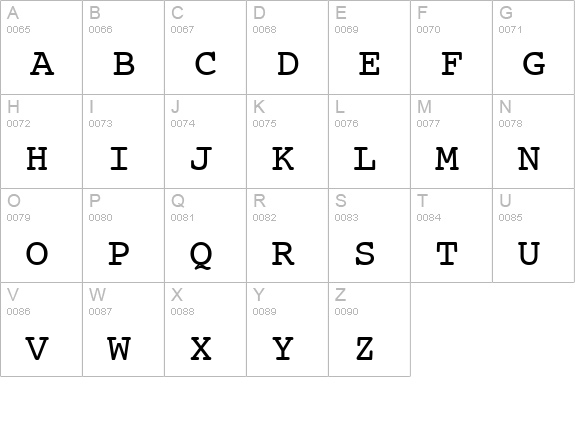
Ariela Plain Font Details
Ariela Plain font is a versatile and elegant typeface that exudes sophistication and modernity. With its clean lines and balanced proportions, this font is perfect for a wide range of design projects, from branding to editorial layouts. The simple yet stylish letterforms of Ariela Plain make it a timeless choice for both print and digital applications. Best of all, Ariela Plain font is available for free download at FontsMarket.com. This means you can easily access this high-quality font without any cost, making it an ideal option for designers on a budget or anyone looking to add a touch of class to their projects without breaking the bank. Download Ariela Plain today and elevate your designs with this beautiful and versatile typeface.